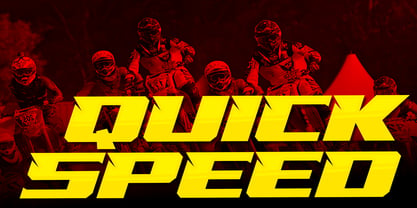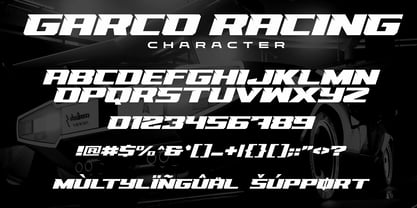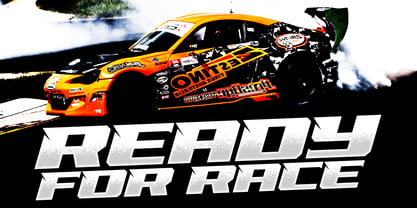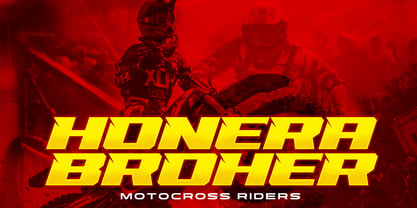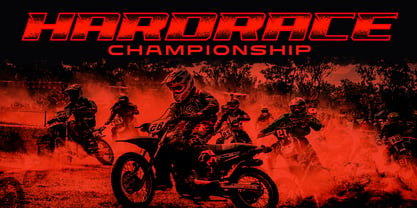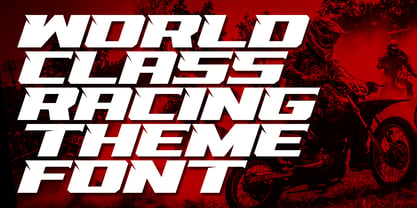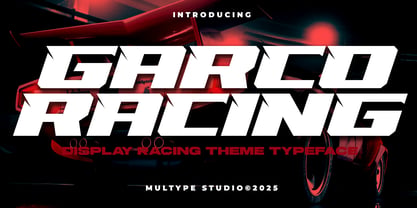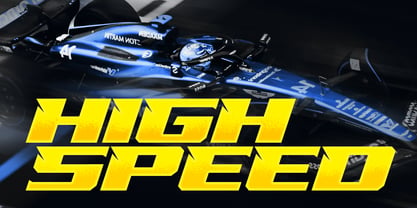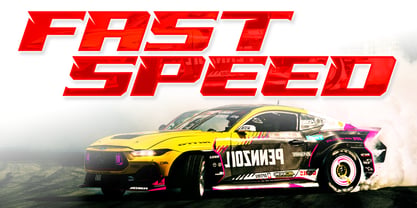
Garco Racing
La famille de polices Garco Racing a été conçue par Mulia Yanto et publiée par Multype Studio. Garco Racing contient 1 styles. En savoir plus sur cette famille
Garco Racing is a font with a racing theme. The slant, bold, and precise cut shapes make this font stand out clearly and make it look strong and fast. Very suitable for racing, automotive, sports racing projects, and racing logo projects, racing brand branding and other projects. What’s Included: All Caps Numbers & Symbols Works on PC / Mac Simple installations Accessible in the Adobe Illustrator, Adobe Photoshop, Adobe InDesign, even work on Microsoft Word PUA Encoded Characters, Fully accessible without additional design software Multilingual support Thank you for your purchase! Hope you enjoy with our font!